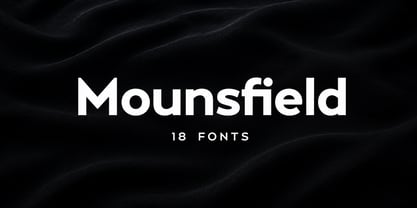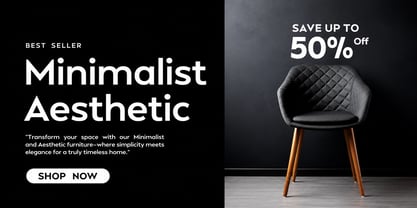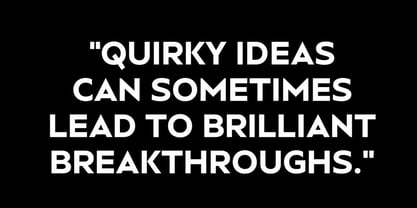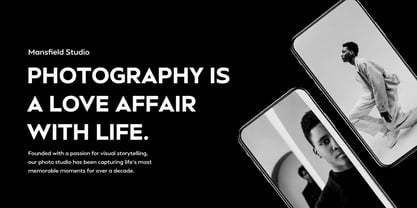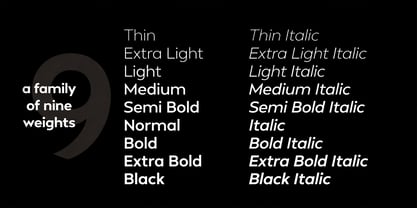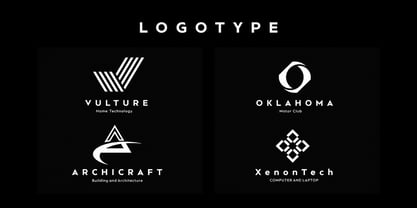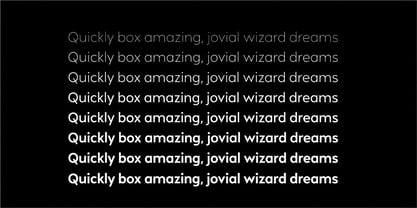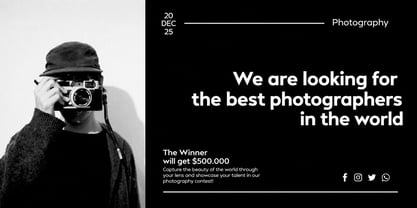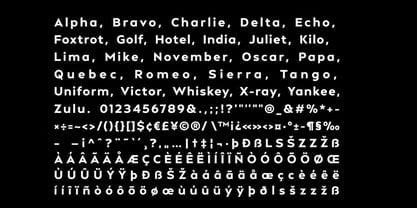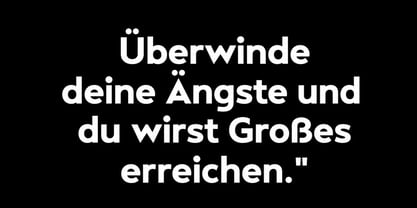
Mounsfield
The Mounsfield Font Family was designed by Faizul Muna and published by Unitype Studio. Mounsfield contains 3 styles. More about this family
Mansfield – Modern Geometric Font Family
Mansfield is a contemporary geometric sans serif font family that blends classic typographic influence with a refined modern character. Inspired by legendary geometric typefaces such as Futura and Avant Garde, Mansfield presents clean shapes, balanced proportions, and a strong visual presence that works beautifully across many design styles.
Built with precise geometric construction, sharp terminals, and very subtle stroke contrast, Mansfield reflects the simplicity and clarity commonly associated with modern neo-grotesque typography. Its tall x-height enhances legibility, allowing text to remain clear and impactful in both large display settings and smaller body text.
The Mansfield font family includes 18 carefully designed styles, offering a complete typographic system for professional design work. With a wide range of weights and matching italics, designers can easily build strong visual hierarchies while maintaining a consistent and cohesive appearance throughout their projects.
Mansfield adapts effortlessly to a variety of creative applications. It works exceptionally well in branding systems, editorial layouts, marketing materials, websites, and digital interfaces. The font’s balanced geometry and clean construction allow it to perform reliably in both print and digital environments.
Its modern and professional aesthetic also makes it an excellent choice for high-impact design elements such as logos, headlines, signage, packaging, and promotional graphics. Mansfield fits naturally within industries such as technology, fashion, creative agencies, startups, and corporate branding.
Whether you’re designing a bold brand identity or crafting a refined editorial layout, Mansfield delivers a confident and contemporary typographic voice that helps your visuals stand out.
Key Features
Modern Geometric Sans Serif
Inspired by iconic geometric fonts like Futura and Avant Garde.
18 Font Styles
A complete font family designed for versatile typographic systems.
Clean Neo-Grotesque Influence
Minimal stroke contrast with balanced geometric construction.
Highly Readable Design
Tall x-height ensures clarity across print and digital media.
Professional & Versatile
Suitable for both corporate branding and creative projects.
Multilingual Support
Extended character set for global design needs.
Elevate Your Typography with Mansfield
If you’re searching for a typeface that combines geometric precision, modern aesthetics, and exceptional versatility, Mansfield is an excellent addition to your design toolkit. Its wide range of styles and clean structure make it perfect for building strong branding, elegant layouts, and modern digital experiences.